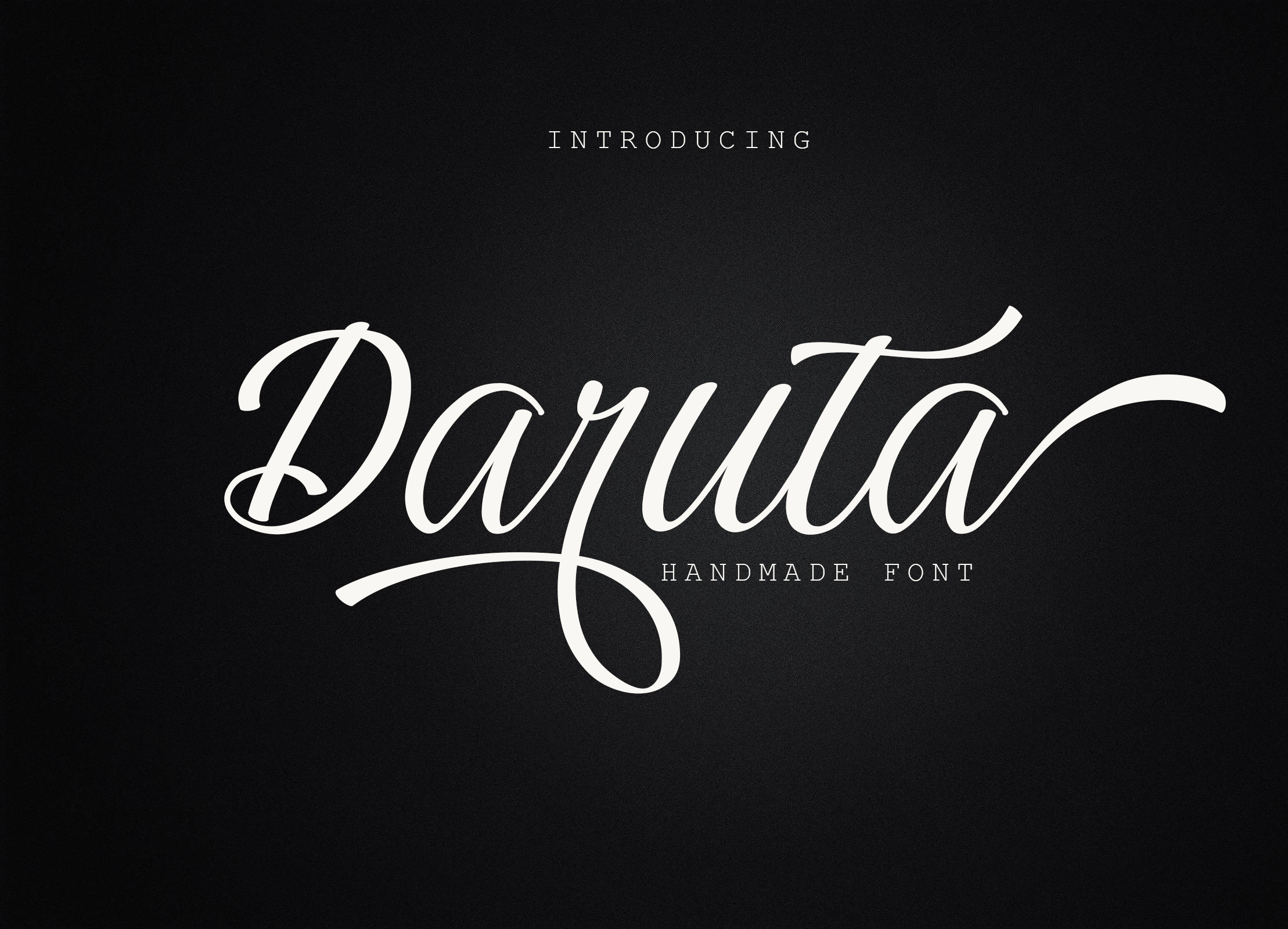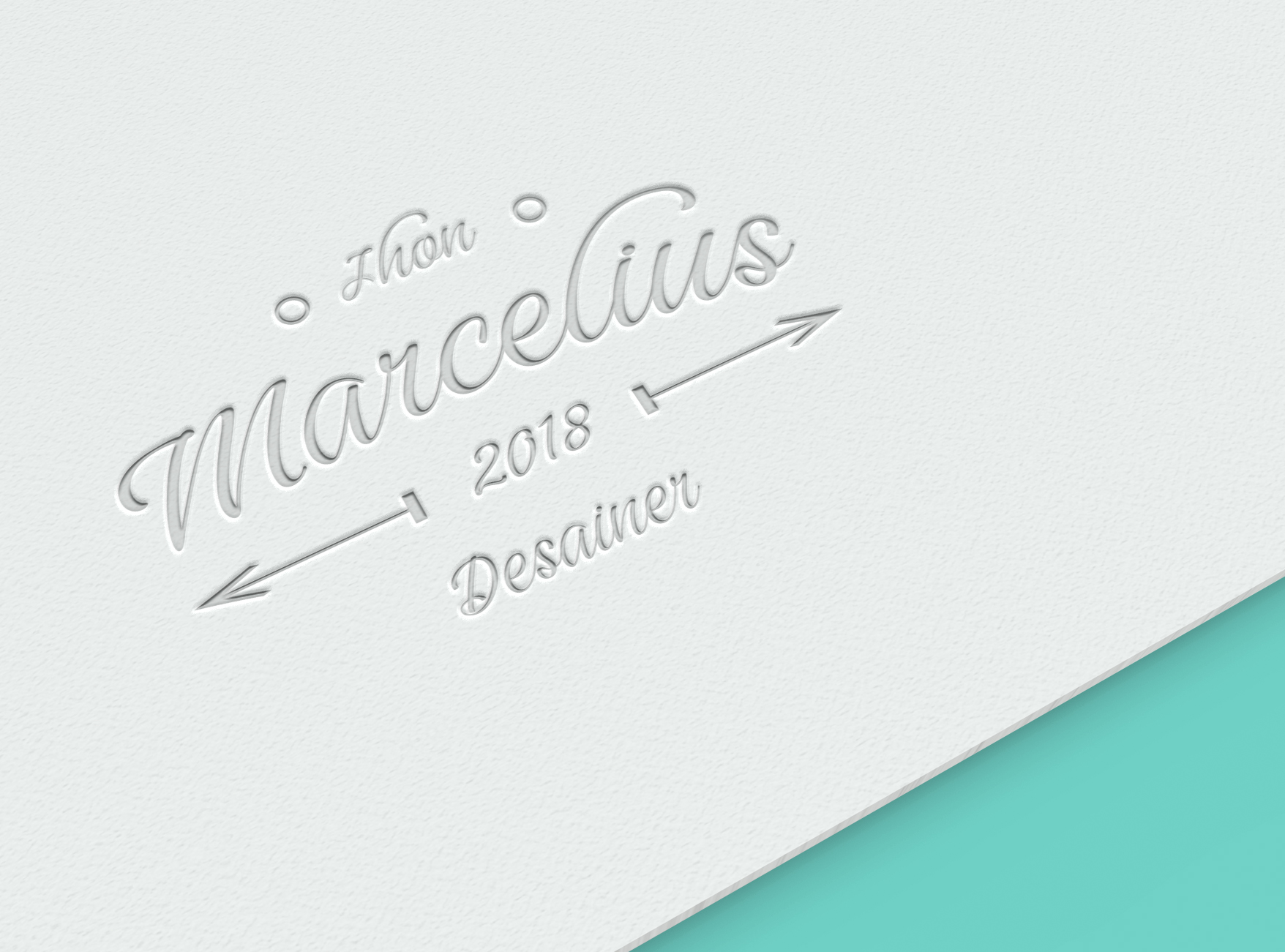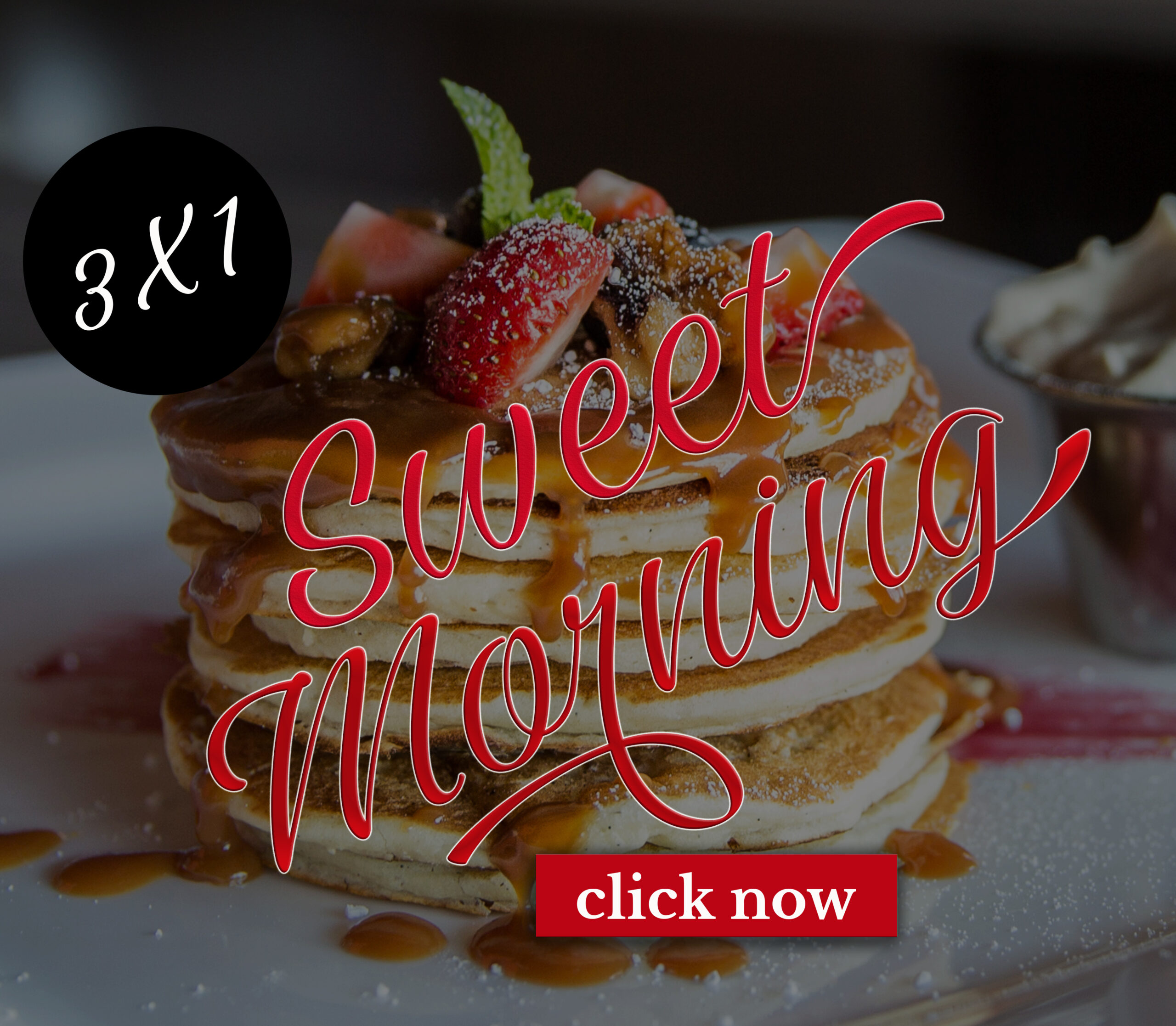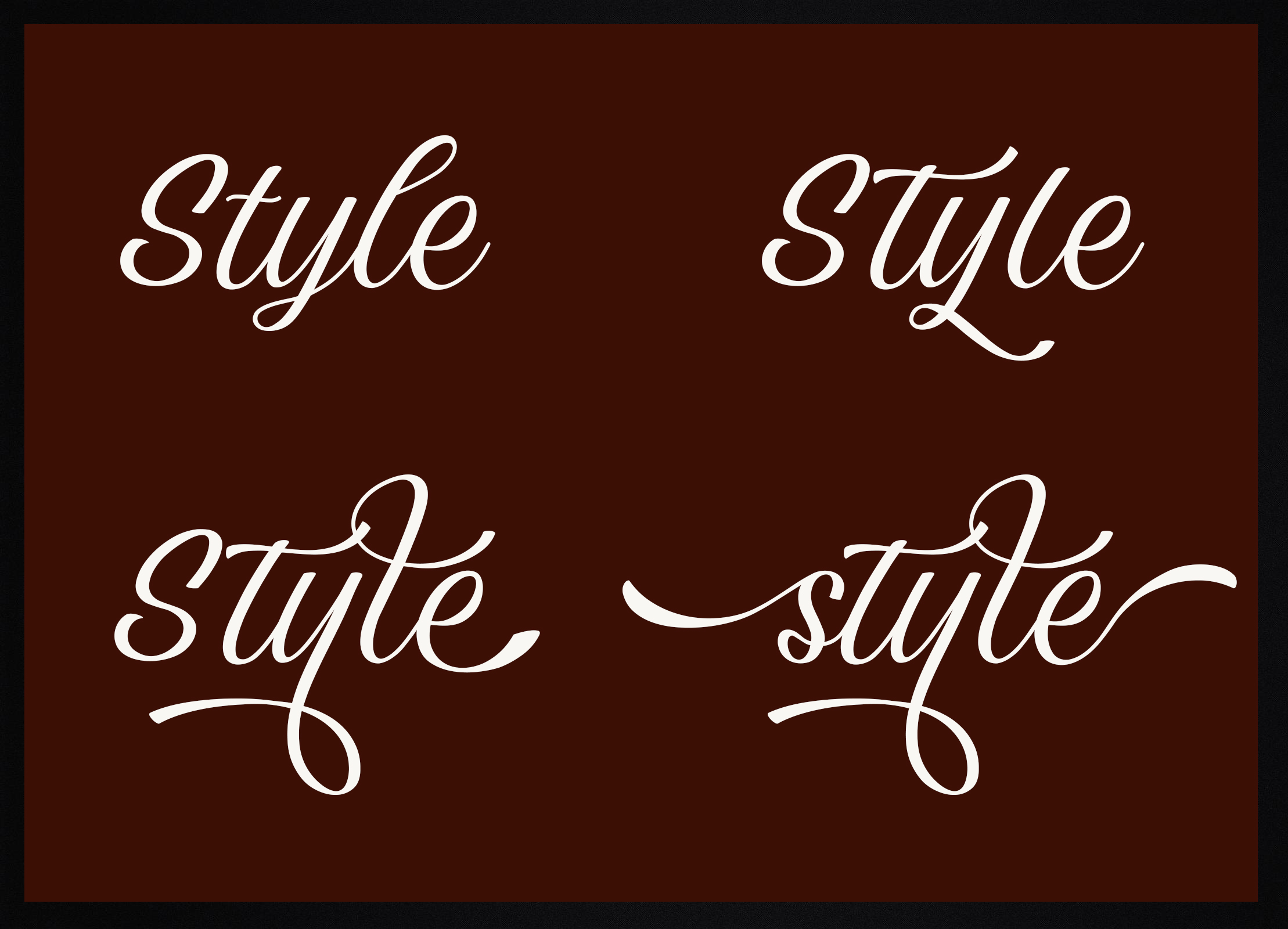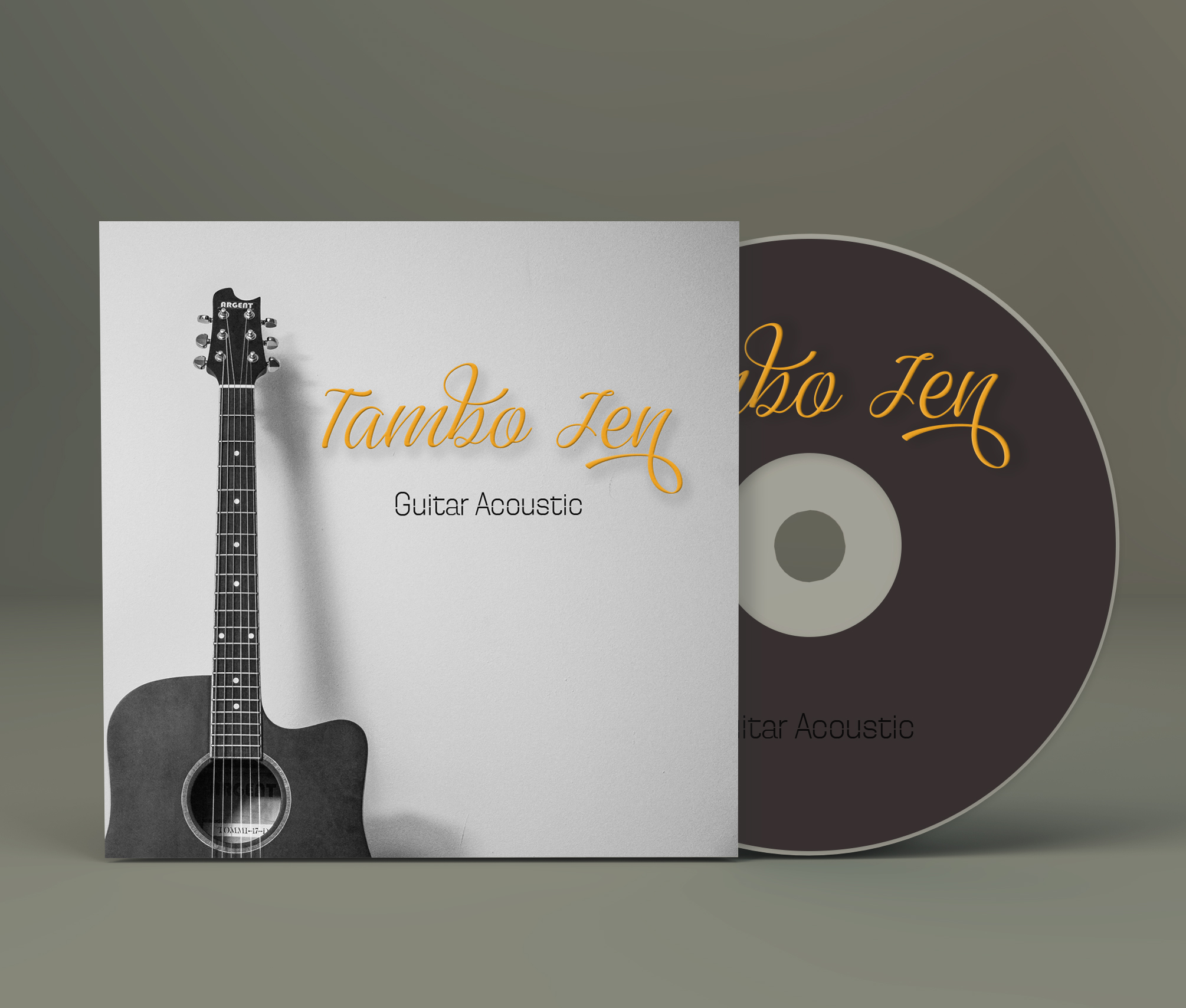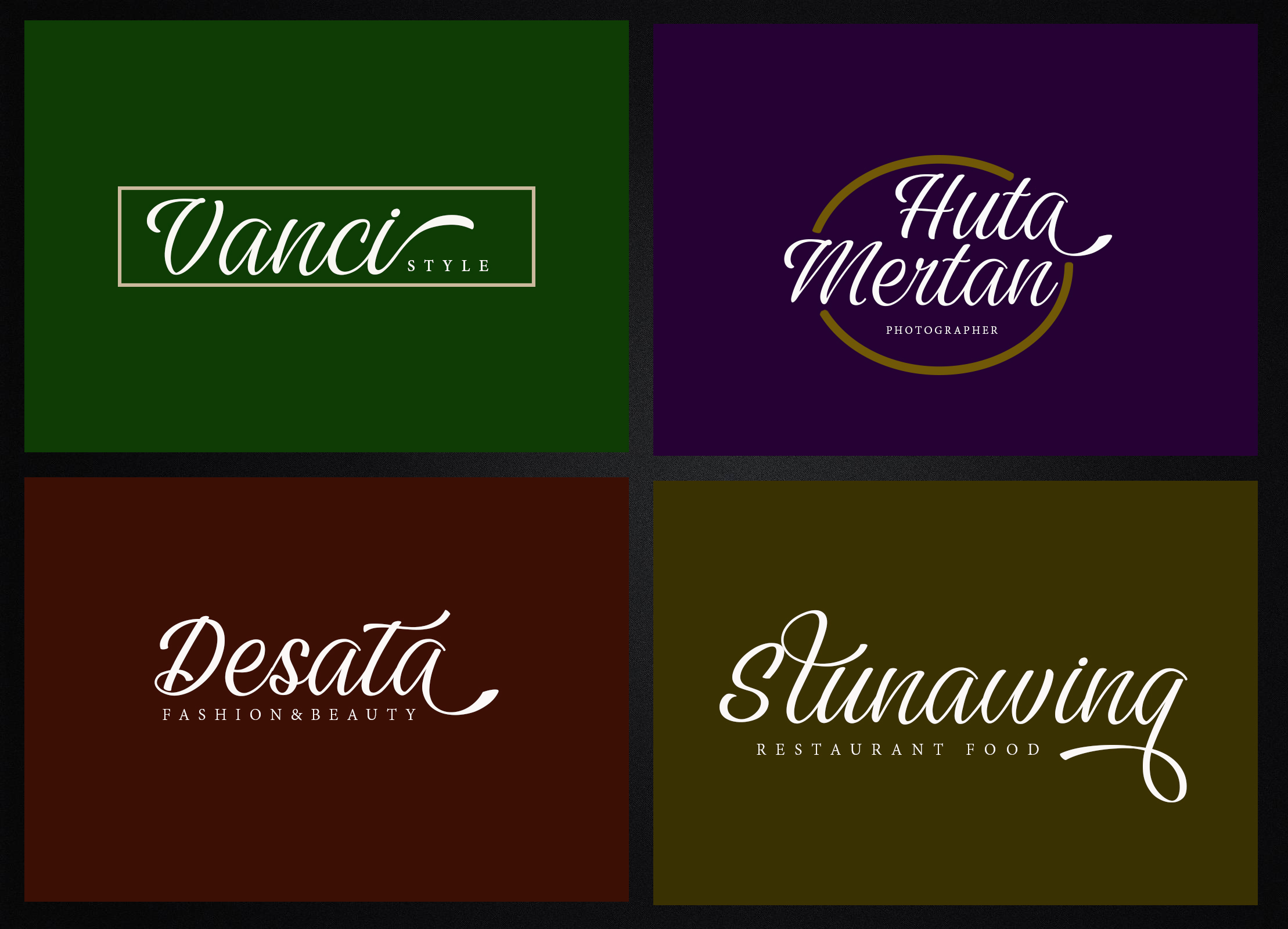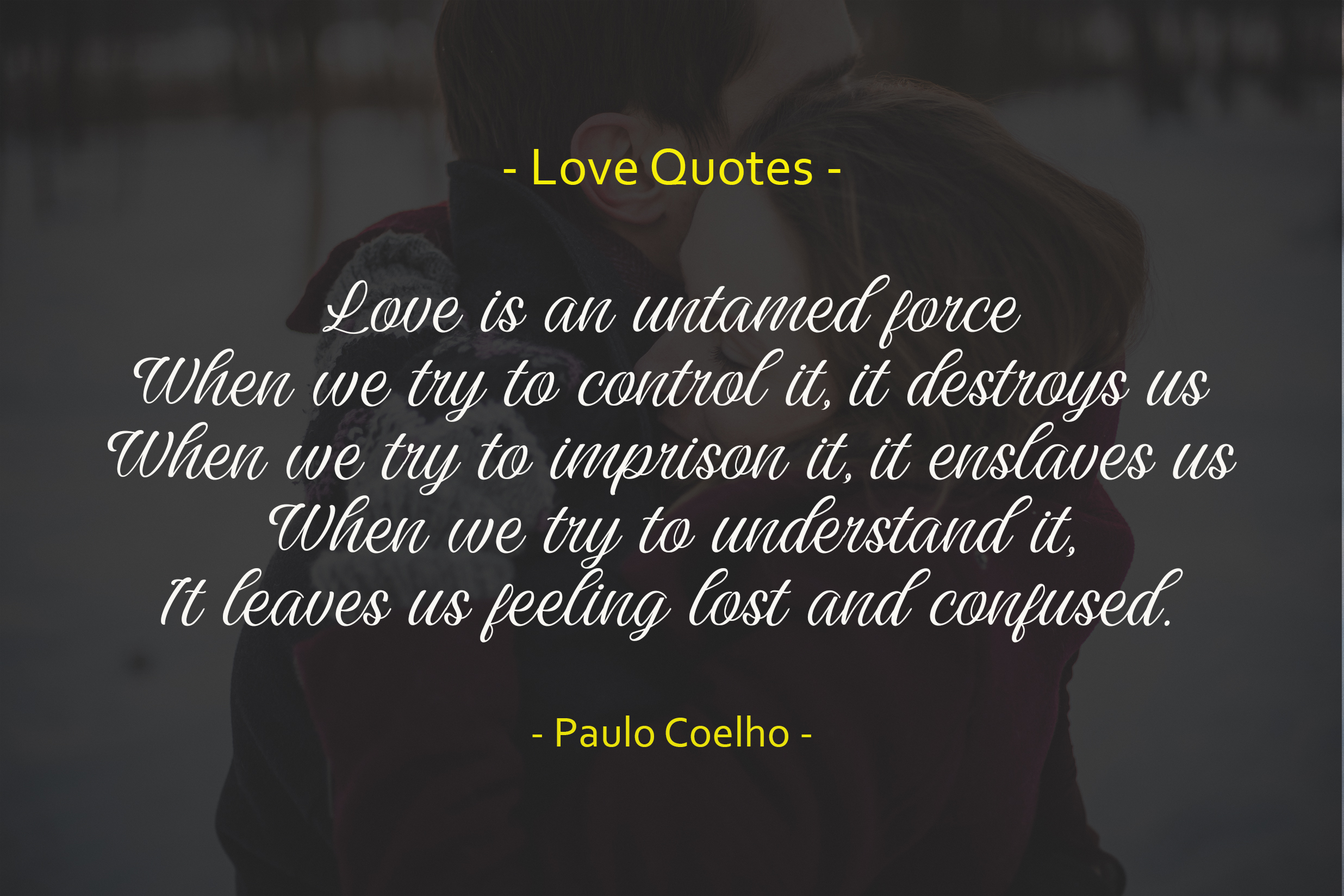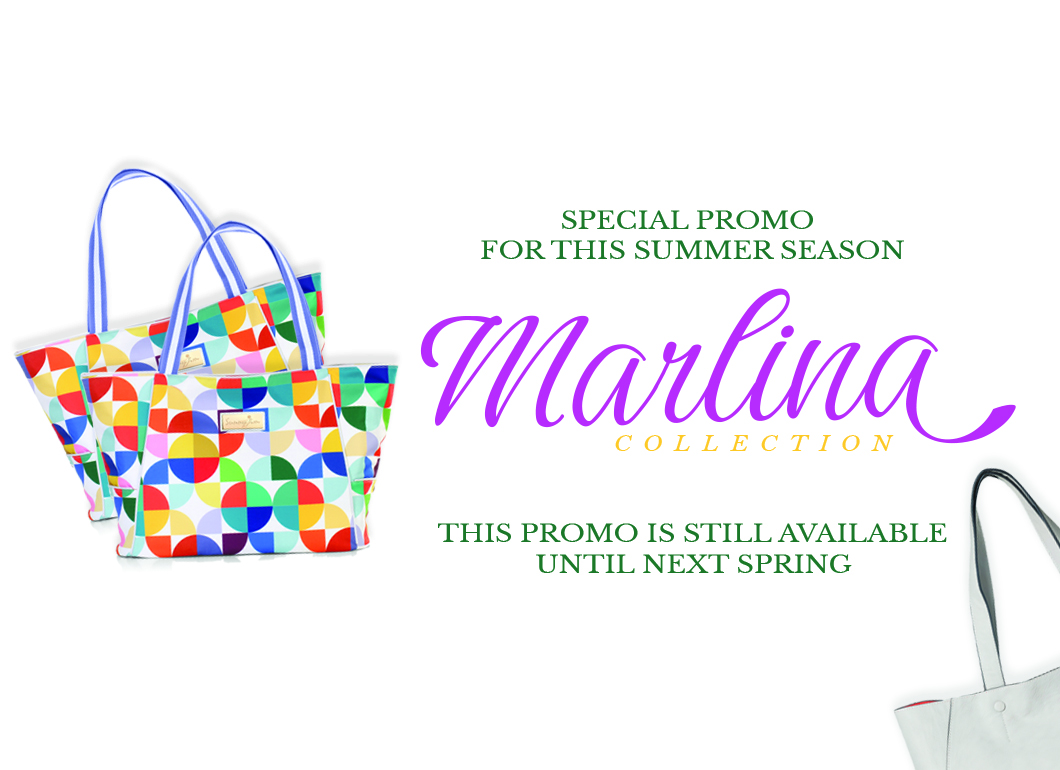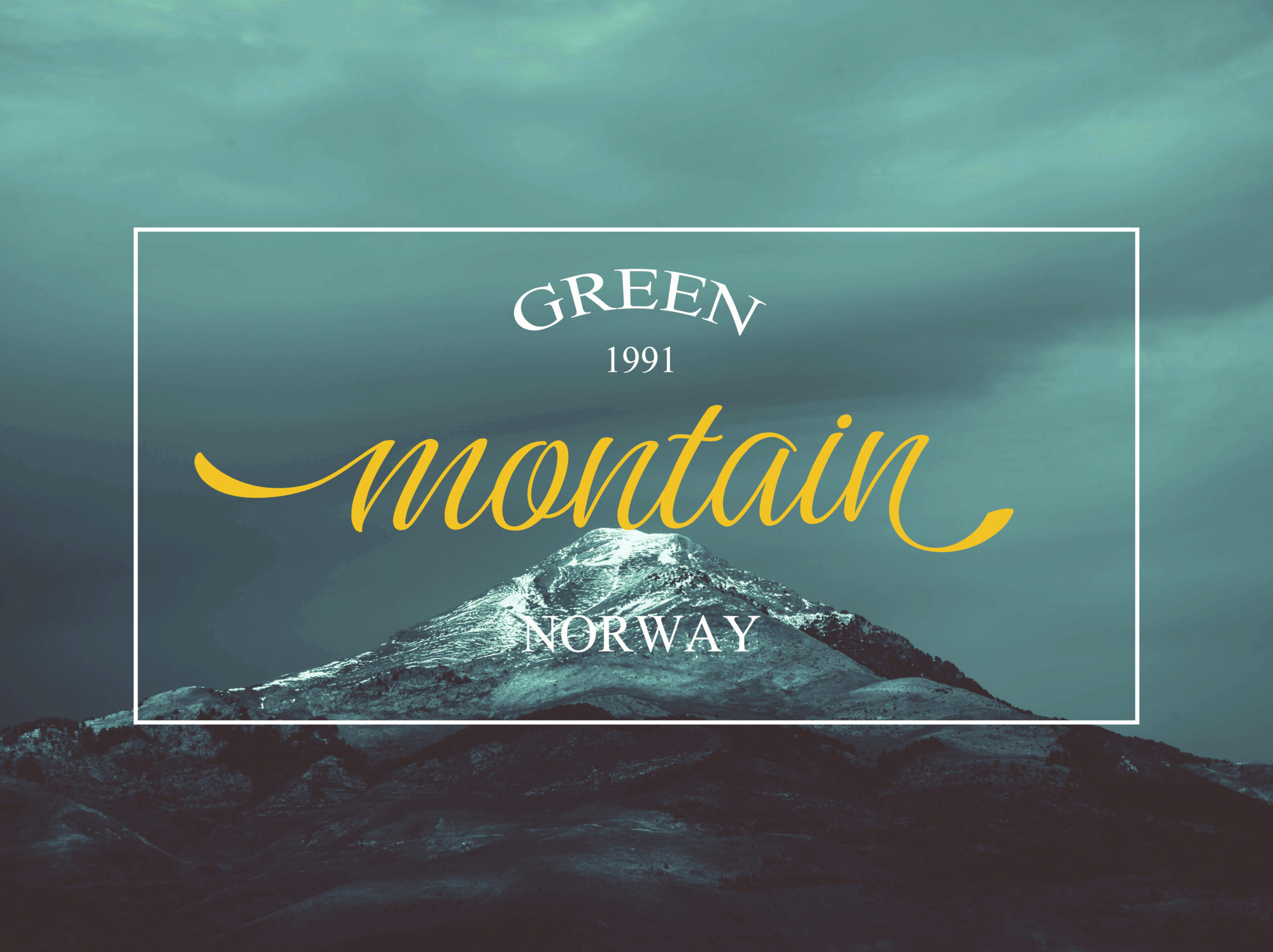
Daruta Font
About Daruta Font
The Daruta Script Family comes in 4 variations: Script, Slant, Bold & Line Shadow.
This fresh handmade calligraphy-style family combines classic calligraphy with a free-flowing, modern look & feel. It features more than 390 unique glyphs and has 8 alternates included, such as initial & terminal letters.
Daruta is a multilingual font.